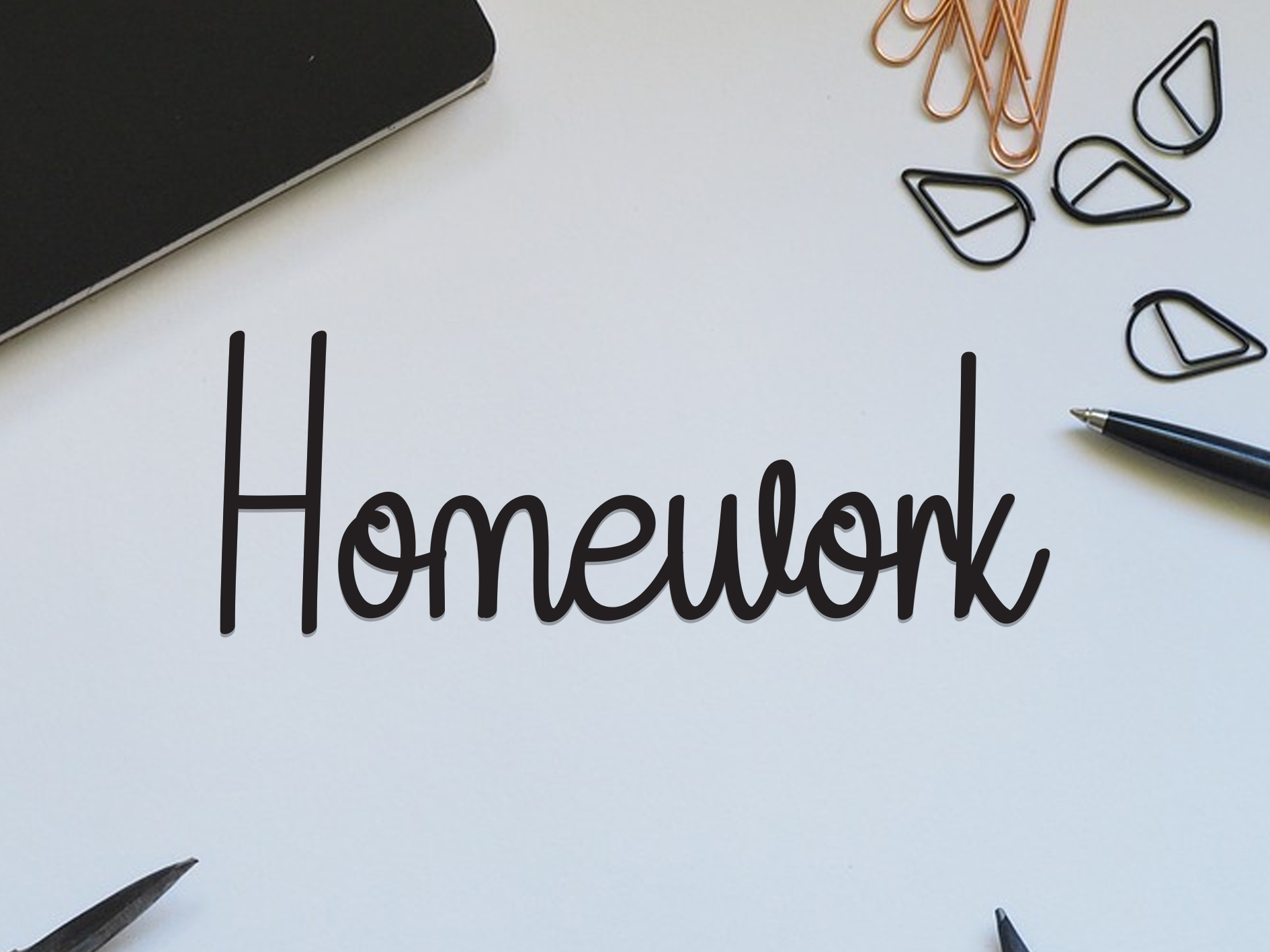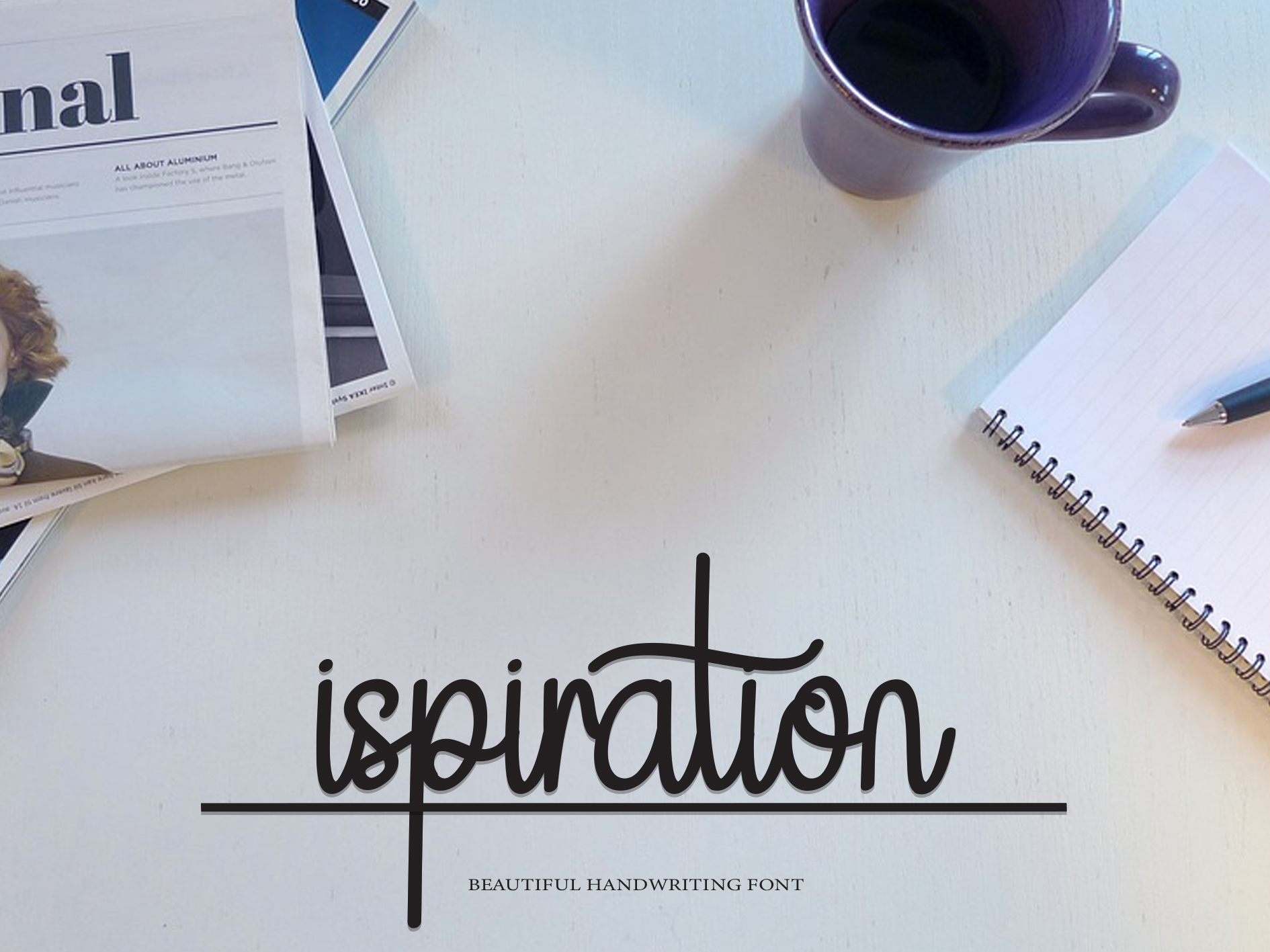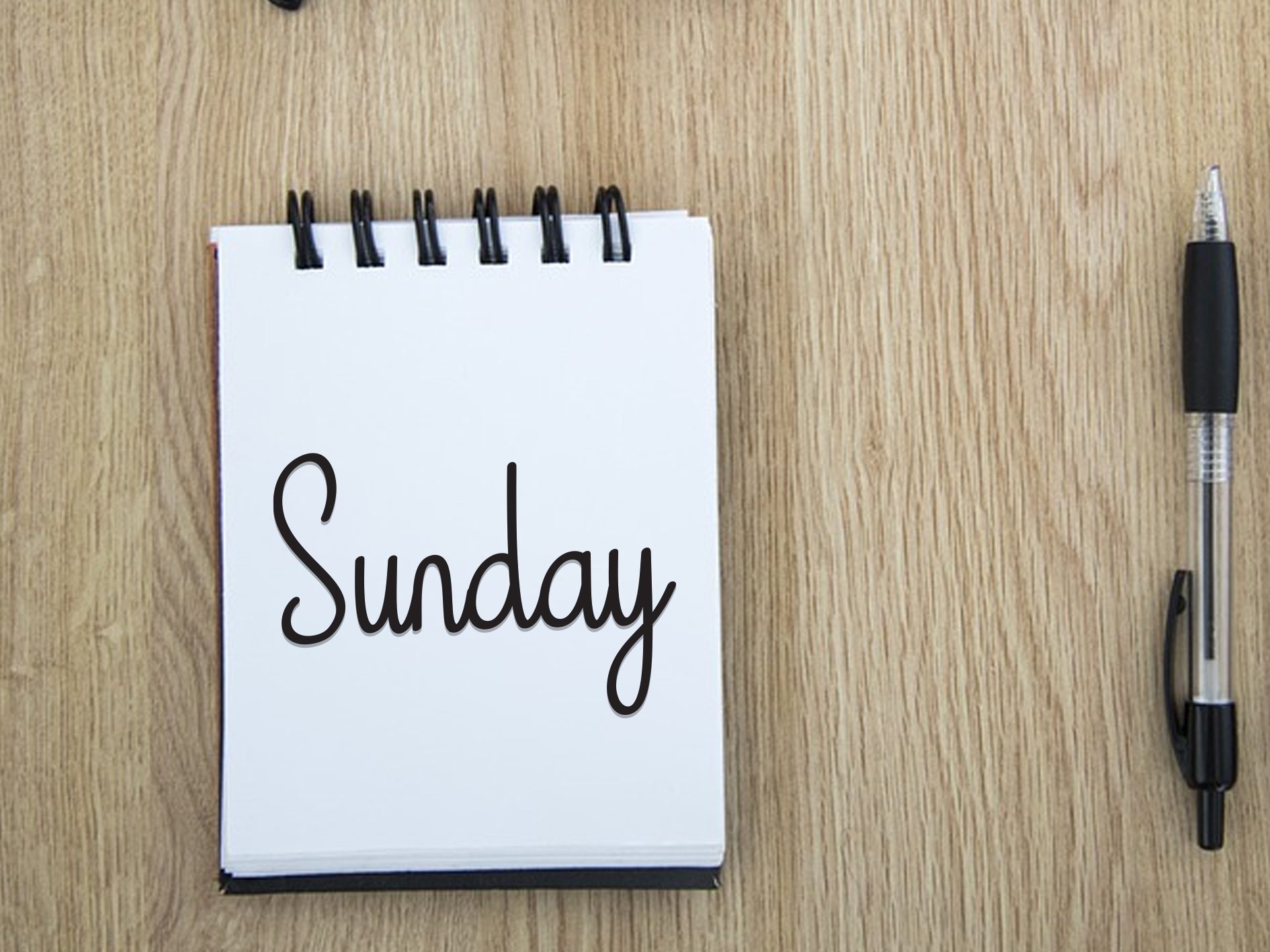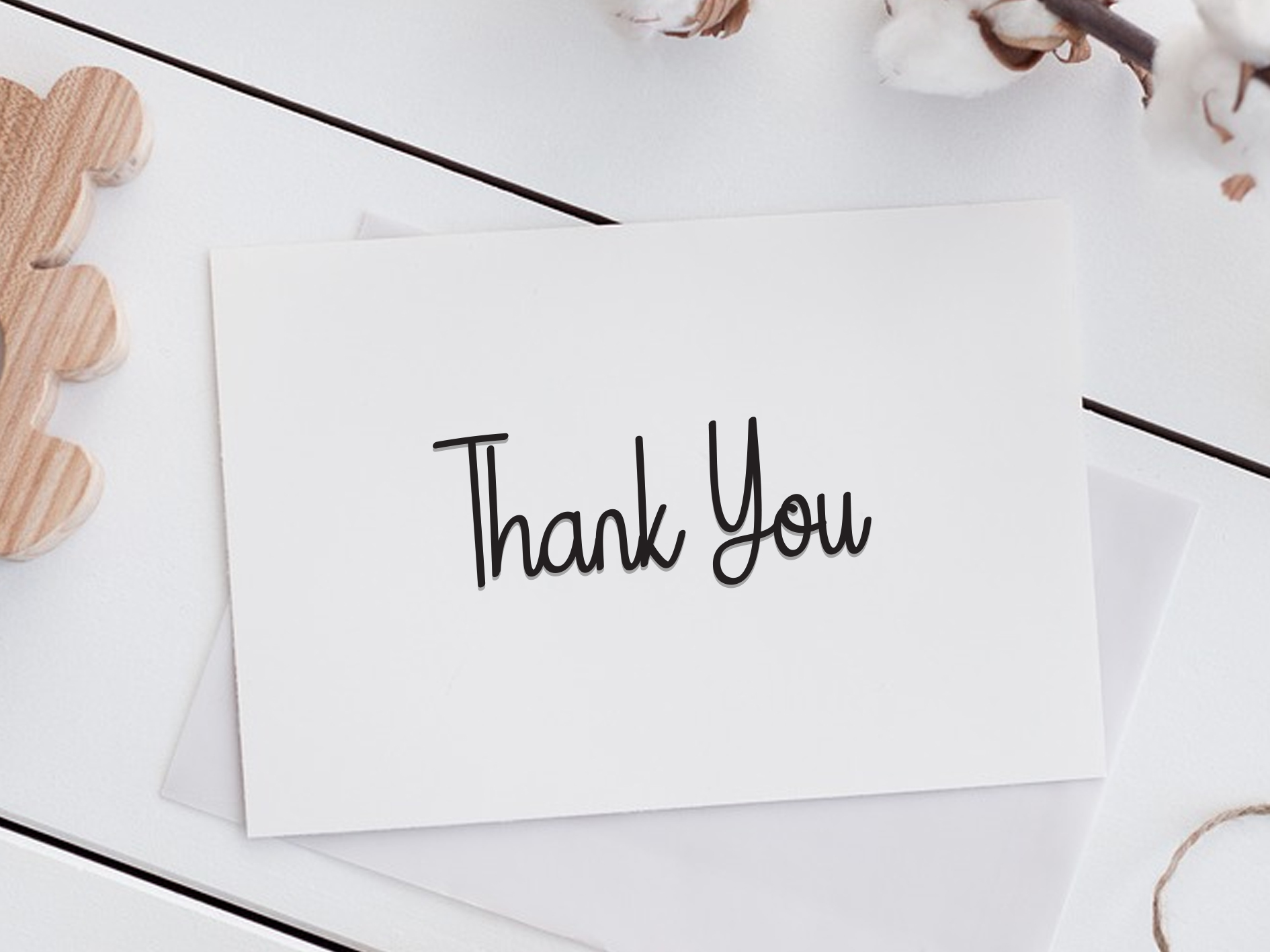
Special Signature Font
It’s a cute handwritten font that is carefully crafted to produce the expected results. This font can be used to write cards, invitations, letters and more.
This is a beautiful and unique handwritten font, with grooves crafted to produce beautiful lettering for use in a wide variety of products as desired. This product link; https://www.creativefabrica.com/product/special-signature/ref/1679118/